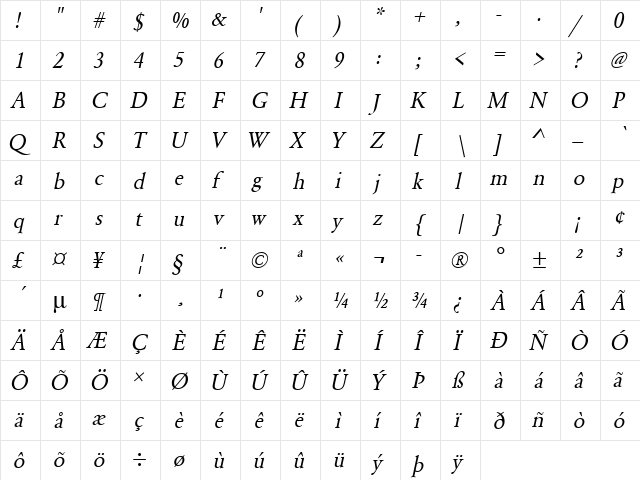
URWGaramondTNar Oblique
URWGaramondTNar takes a measured approach to typography — its balanced proportions and neutral character make it a reliable workhorse for both digital and print work. The dynamic lean of this cut emphasises speed and emphasis in any layout.